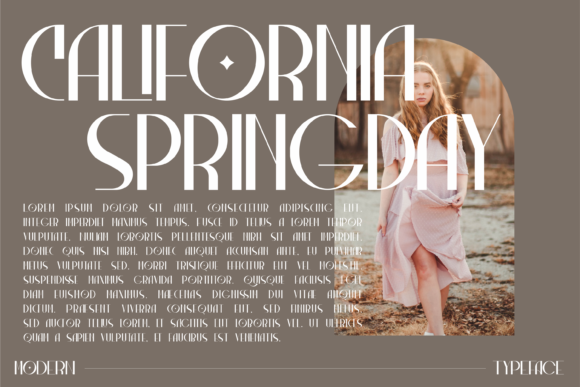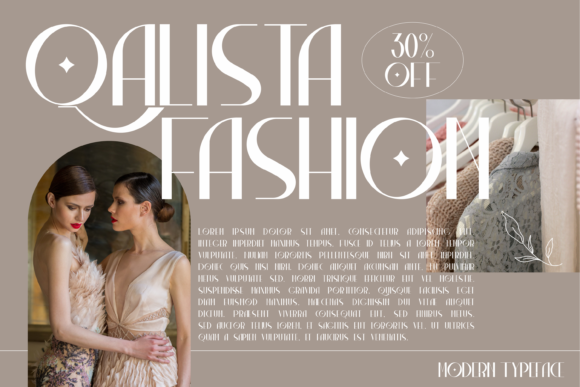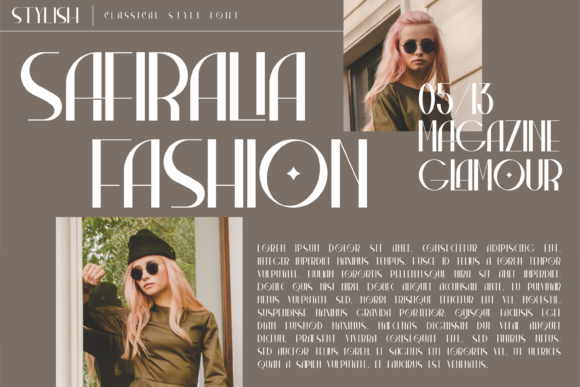
Introduction to Porto Qastelo Font
Have you ever been stuck on a creative project, searching for the perfect font to bring your design to life? I’m sure you’ve been there – staring at a blank canvas, scrolling through countless options, and still not finding that elusive spark. That’s where the Porto Qastelo Font comes in – a game-changing display font that’s about to revolutionize your design process.
With its sleek, modern aesthetic and incredibly versatile style, the Porto Qastelo Font is a valuable resource for designers of all levels. Whether you’re working on a high-quality branding project or creating a stunning graphic for social media, this font is sure to elevate your design to new heights. Plus, with its transparent background and free download option, you can experiment with it without any limitations.
So, are you ready to fall in love with the Porto Qastelo Font and take your designs to the next level? In this article, we’ll dive into the world of this amazing font and explore its features, benefits, and how you can use it to create truly spectacular designs.
Porto Qastelo Font
- High-quality font designed for creative projects, perfect for modern designs and layouts.
- Features a transparent background, allowing for easy integration with various design elements.
- Comes in 3 different font styles: Regular, Bold, and Italic, to cater to diverse design needs.
- Supports a wide range of languages, including Latin, making it a versatile font for international designs.
Honest Review: Porto Qastelo Font
I recently stumbled upon the Porto Qastelo Font, and I must say it’s been a game-changer for my creative project. This font is a high-quality addition to any design resource.
- What works well: ✨ The font’s elegant and modern design makes it perfect for headings and titles. The transparent background feature allows for easy overlaying on images or backgrounds.
- What works well: ✨ The font comes in multiple weights and styles, providing versatility for a wide range of design applications.
- ⚠️ The font may not be suitable for body text due to its bold and eye-catching nature.
- ⚠️ The font’s high contrast design may not be ideal for low-contrast backgrounds or images.
Overall, I’m impressed with the Porto Qastelo Font. It’s a fantastic design resource that can elevate any creative project. With its high-quality design and transparent background feature, it’s a must-have for any designer looking to add some flair to their work.
Porto Qastelo Font
The Porto Qastelo Font is a high-quality design resource ideal for creative projects. It’s available for free download and features a transparent background, making it versatile for various design needs.
The Porto Qastelo Font is suitable for a variety of design needs, including:
- Branding and logo design.
- Print and digital marketing materials.
- Website design and development.